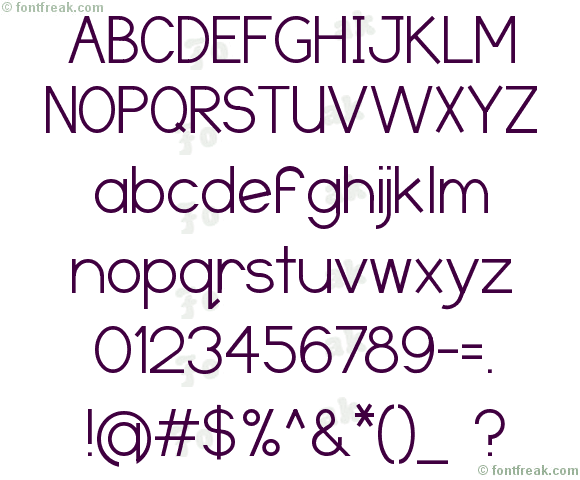
Zuben
About Zuben
Zuben, designed by Fran Board in 2009, is a striking sans-serif typeface that captures attention with its unique visual characteristics. This font is characterized by its clean lines and modern aesthetics, making it a versatile choice for a wide range of design applications. The stroke weight is balanced, providing a harmonious contrast that contributes to its readability. The generous spacing between characters enhances clarity, making it suitable for both headlines and body text. The simplicity of Zuben is complemented by subtle decorative elements that add a touch of personality without overwhelming the overall design.
Zuben is an ideal choice for various use cases, including wedding invitations, where its elegance can evoke a sense of sophistication. It works beautifully for movie posters, where bold typographic statements are essential to capture audience interest. Additionally, restaurant menus can benefit from Zuben’s clean and approachable style, creating an inviting ambiance. For digital content, bloggers and social media influencers will find this font perfect for crafting eye-catching graphics that stand out in crowded feeds.
The target audience for Zuben includes graphic designers looking for a fresh and modern typeface, small business owners seeking a professional yet approachable look for their branding, and content creators who need a reliable font for various projects.
What makes the Zuben font stand out is its balance of simplicity and charm, allowing it to adapt seamlessly across different mediums and styles. Its freeware license makes it accessible for anyone who wishes to elevate their design projects. For those interested in exploring this versatile typeface, a Zuben font free download is readily available, opening up a world of creative possibilities.